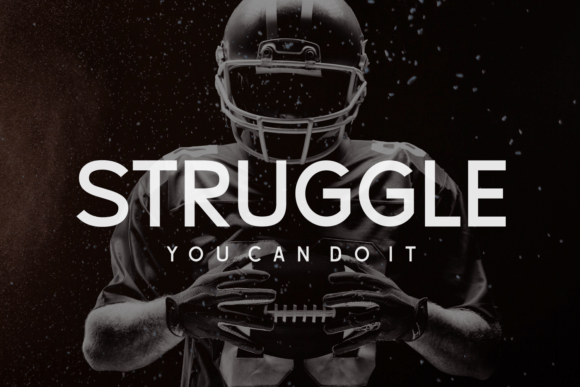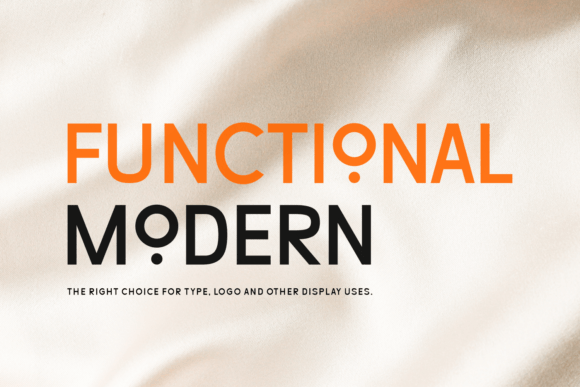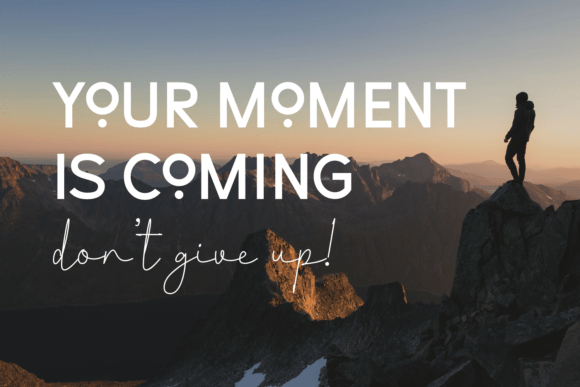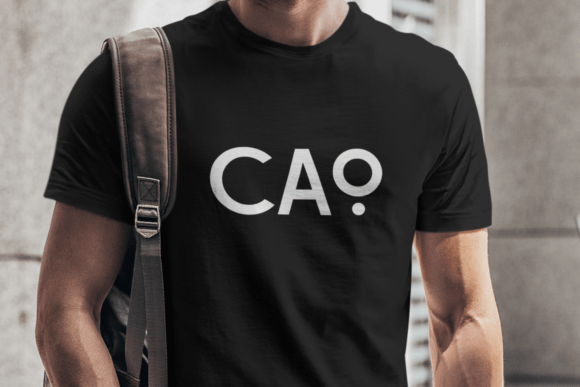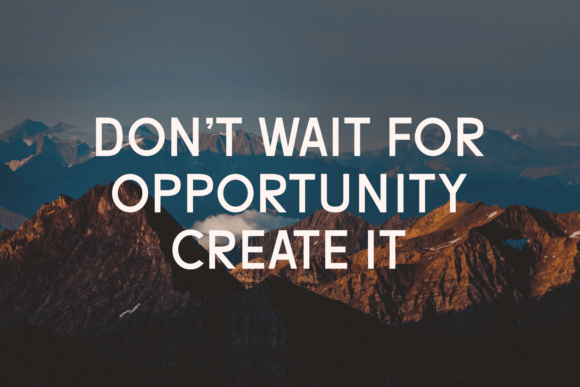
I still remember the frustration of working on a project, hours spent crafting the perfect design, only to have it fall flat due to a lackluster font choice. My client wanted a bold, modern look that would make their brand stand out, but I was struggling to find the right fit. That’s when I stumbled upon Gacroune, a sleek and modern display sans serif font that would change the game.
First Impressions: A Love Affair with Gacroune
Gacroune is more than just a font – it’s a design statement. With its clean lines, geometric shapes, and balanced proportions, it’s perfect for headlines, titles, and other prominent text. Here are a few things I love about Gacroune:
- ✨ **Modern aesthetic**: Gacroune’s contemporary look is perfect for brands that want to appear fresh and modern.
- ✅ **Readability**: Despite its bold and sleek design, Gacroune remains highly readable, even at smaller sizes.
- 💡 **Versatility**: Gacroune works beautifully in both print and digital media, making it a versatile addition to any design toolkit.
- 👍 **Stylish simplicity**: Gacroune’s clean design ensures that it won’t overpower your content, allowing your message to shine through.
The Not-So-Perfect Font
While Gacroune is an excellent font, it’s not without its quirks. Here are a few things to keep in mind:
- 🤔 **Limited use cases**: Gacroune is best suited for headlines and titles. It may not be the best choice for body text or smaller font sizes.
- ⚠️ **Glyph limitations**: While Gacroune has a range of glyphs and OpenType features, it may not have every special character or symbol you need.
Gacroune Alternatives: Exploring Similar Fonts
If you like Gacroune, you may also enjoy these similar fonts:
- **Montserrat**: A geometric sans serif font with a similar modern aesthetic. Use Montserrat for a more urban, industrial look.
- **Avenir**: A sleek and sophisticated sans serif font with a similar sense of elegance. Use Avenir for a more luxurious, high-end feel.
- **Helvetica**: A classic sans serif font with a clean and modern design. Use Helvetica for a more timeless, versatile look.
- **Inter**: A contemporary sans serif font designed specifically for digital media. Use Inter for a more tech-savvy, modern look.
The Story Behind Gacroune
Gacroune was designed with the goal of creating a modern, versatile font that would meet the needs of designers and brands. While I couldn’t find any information on the designer’s personal story, it’s clear that Gacroune was crafted with care and attention to detail.
| Font Name | Gacroune Font |
| Author | Damai (7NTypes) |
| What is Gacroune best used for? | Gacroune is best used for headlines, titles, and other prominent text where a bold, modern look is desired. |
| Is Gacroune suitable for body text? | No, Gacroune is not recommended for body text. Its bold design and clean lines make it better suited for headlines and titles. |
| Does Gacroune have OpenType features? | Yes, Gacroune has a range of OpenType features, including glyphs and stylistic alternates. |